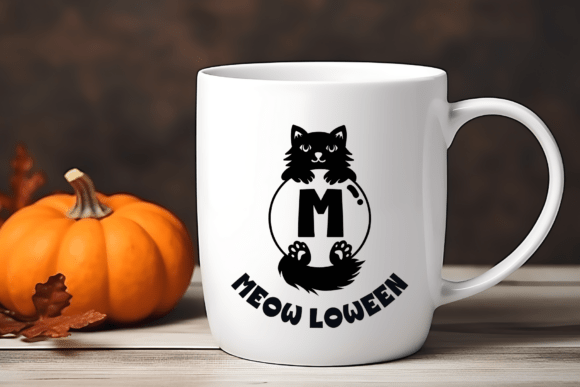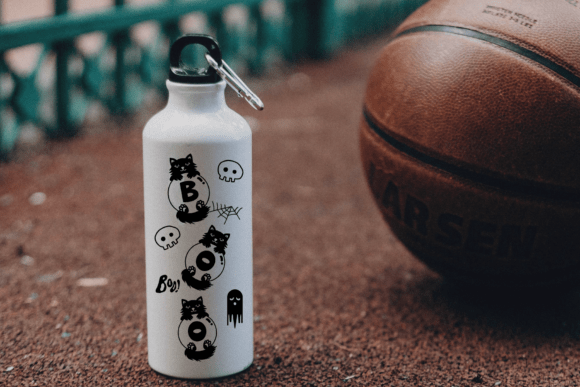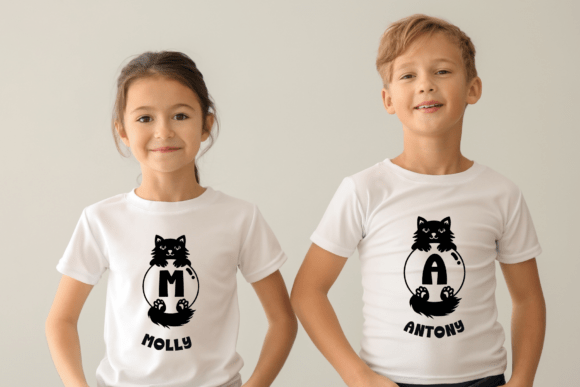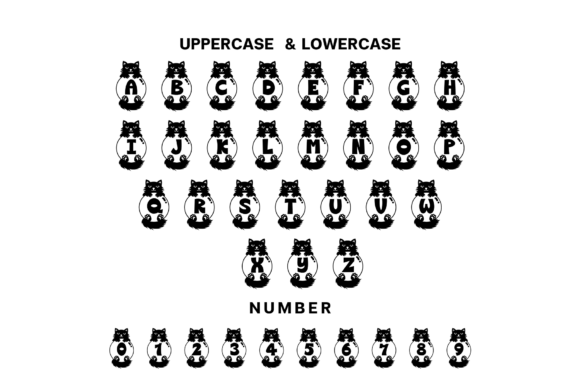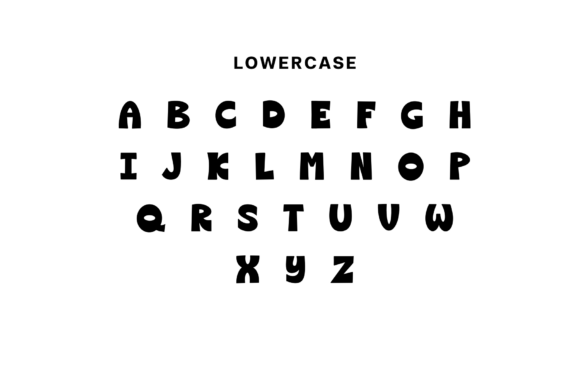
The Purrfect Font: Unleashing the Power of Black Cat Font
I’ll never forget the time I was working on a Halloween-themed project for a client, and I just couldn’t find the right font to capture the spooky-cute vibe I was going for. That was until I stumbled upon the Black Cat font. It was love at first sight! The perfect blend of scary and adorable, this decorative font has become a staple in my design toolkit. In this article, I’ll share with you why I’m obsessed with Black Cat font, its features, and how to make the most of it in your designs.
An Honest Review of Black Cat Font
What I Love About Black Cat Font ✨
- Unique and eye-catching design that adds a touch of personality to any project
- Perfect for creating spooky-cute designs, such as Halloween-themed content, but also versatile enough for everyday use
- Works well for both digital and print designs, including social media posts, mugs, cards, shirts, and more
- Easy to read and understand, despite its decorative nature
- Supports OpenType features, glyphs, and stylistic alternates for added creative control
- May not be suitable for very formal or professional designs, as it has a playful and whimsical feel
- Some characters may not be suitable for use at very small font sizes, due to their intricate design
- ⚠️ Limited language support, so it’s best used for English or languages with similar character sets
The Backstory of Black Cat Font
Legend has it that Black Cat font was inspired by the mischievous cat of a famous designer. One dark and stormy night, the designer’s cat jumped onto their keyboard, creating a beautiful mess of letters and symbols. And so, Black Cat font was born! While that’s likely not the true story, it’s easy to imagine that this font was created with a dash of creativity and a pinch of whimsy.
| Font Name | Black Cat Font |
| Author | Pui Art |
Q: What type of designs is Black Cat font best suited for?
A: Black Cat font is perfect for creating spooky-cute designs, such as Halloween-themed content, but it’s also versatile enough for everyday use, including social media posts, mugs, cards, shirts, and more!
Q: Is Black Cat font easy to read?
A: Despite its decorative nature, Black Cat font is surprisingly easy to read and understand. However, it’s best used for designs where you want to add a touch of personality, rather than for very formal or professional content.